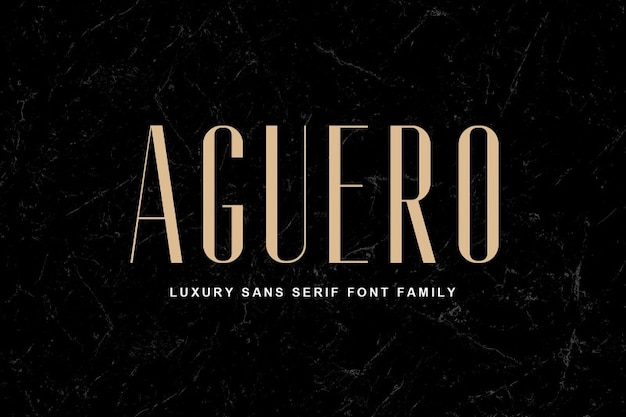
Aguero Sans
Aguero Sans Font
This font exudes an aura of opulence and sophistication. This luxurious font boasts elegant curves and intricate details, making it the perfect choice for projects that demand a touch of extravagance. Whether used in invitations, branding, or any design endeavor, "Aguero" adds a dash of class and fancy flair that elevates your work to a new level of refinement. Choose "Aguero" for a timeless and elegant typographic experience.